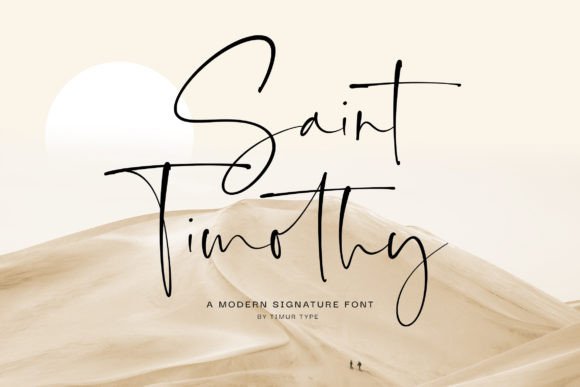
Introducing Saint Timothy Font - the epitome of charm and elegance in the world of script fonts. Crafted with finesse by Timur type, this font is the perfect choice for anyone looking to add a touch of sophistication to their designs.
Saint Timothy is not just any script font. It is the embodiment of grace and beauty, creating a stunning visual impact on wedding invitations, thank you cards, quotes, greeting cards, logos, business cards, and everything in between. Its fluid strokes and gentle curves make it a timeless addition to any project, whether it's for personal or commercial use.
The versatility of Saint Timothy is unmatched. It can be used to convey a wide range of emotions, from joy and happiness to sadness and nostalgia. This font evokes a sense of nostalgia and timelessness that is sure to leave a lasting impression on anyone who lays their eyes on it.
This font is ideal for those who want to create a personalized touch to their designs, giving them a handwritten feel that is both warm and inviting. With its exquisite attention to detail, Saint Timothy is the perfect choice for anyone looking to create a design that stands out from the crowd.